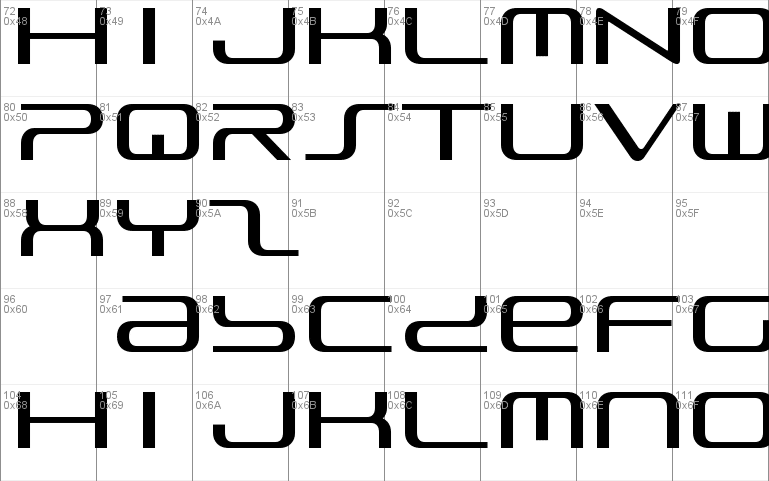
Slim Play Font Likes “Blue Players”, this is a fontification of the PS3, 4, Vita, and PSN logos. Same deal with this as with “Blue Players”, taking reference with “TEST” PS3 consoles.